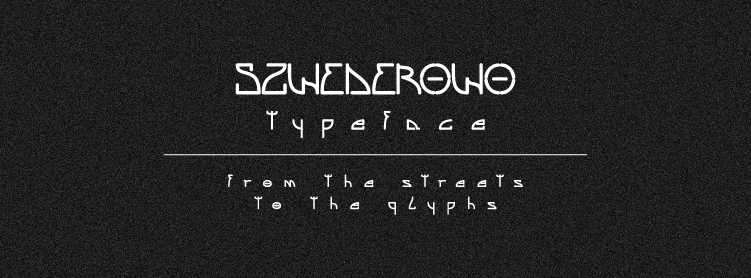
Szwederowo, a font created as a tribute to the place and the people, among which I grew up and developed my passion, which is creating letters. From the very first sketches as a child, to this day, until the very end. It all started on Szwederowo. |